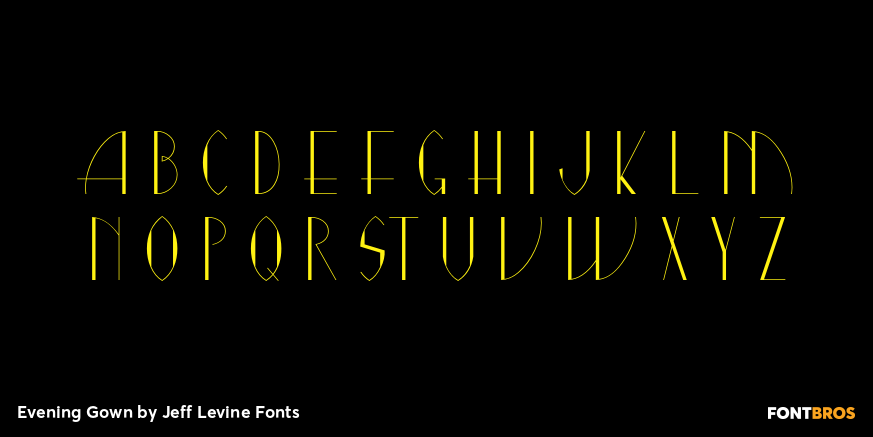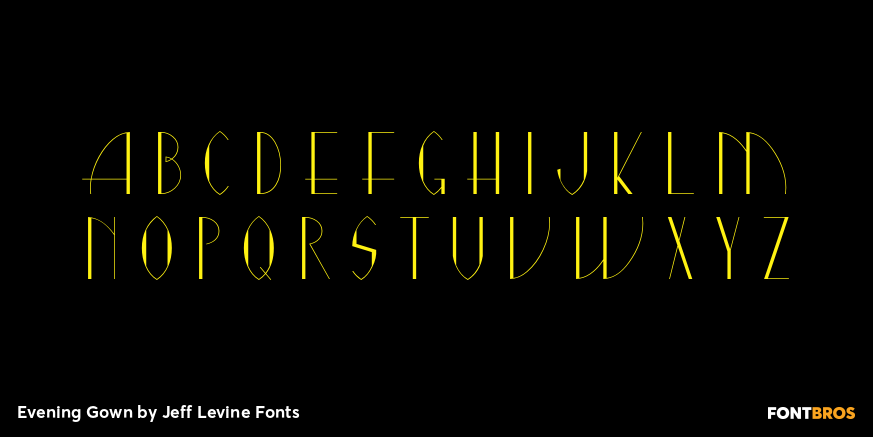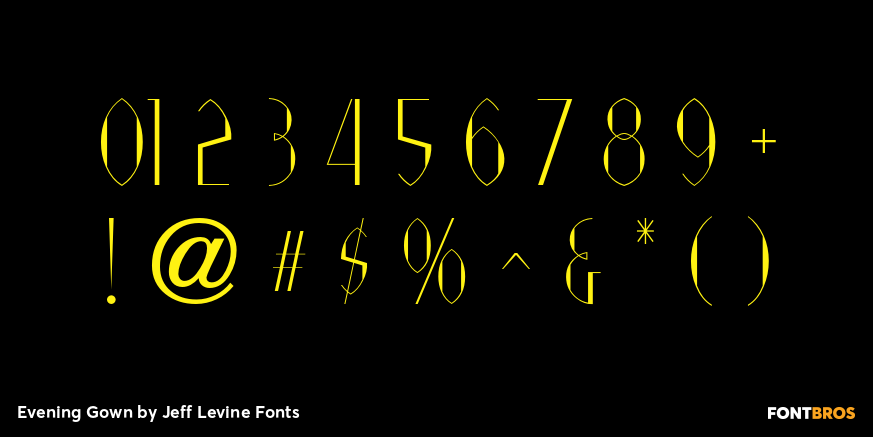
Evening Gown
Evening Gown JNL comes from the lettering displayed on a printed ad for the fictional 'Gowns by Roberta” in a scene in the 1935 film of the same name. 'Roberta” starred Fred Astaire and Ginger Rogers and was based on the successful 1933 stage play.